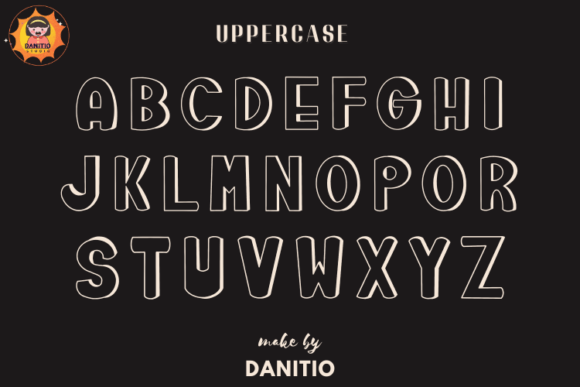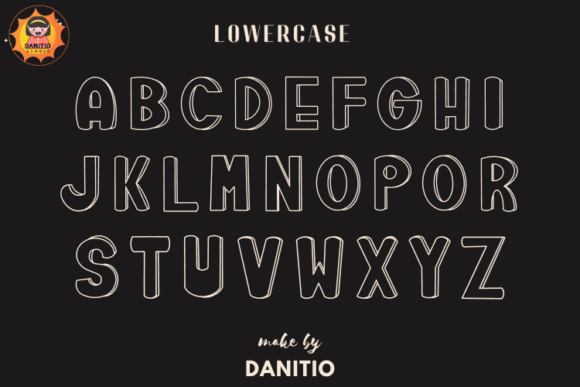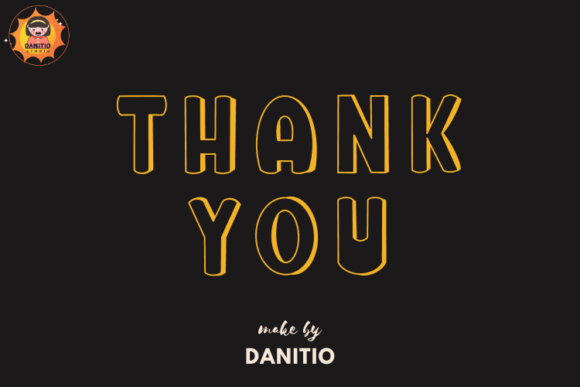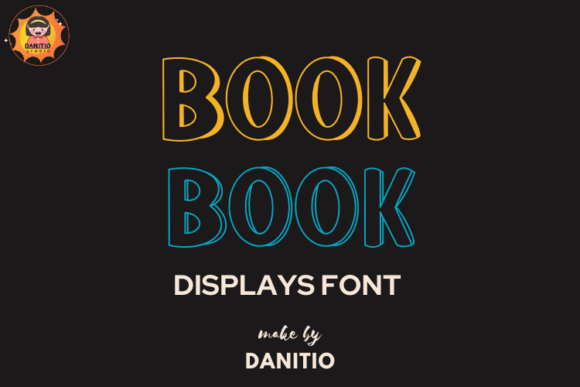
Introducing Book Book Font: The Ultimate Display Font for Cute and Creative Projects
Are you a designer, crafter, or DIY enthusiast looking for a font that can add a touch of cuteness and sweetness to your projects? Look no further than Book Book Font! This adorable display font is perfect for a wide range of applications, from kids’ worksheets and invitations to packaging and branding projects.
What Makes Book Book Font So Special?
Book Book Font is a unique and charming display font that is sure to capture the attention of your audience. Its cute and playful design makes it ideal for projects that require a touch of whimsy and fun. Whether you’re creating a worksheet for kids, an invitation for a party, or a packaging design for a product, Book Book Font is the perfect choice.
Key Features of Book Book Font
- Cute and Cool Design: Book Book Font features a unique and adorable design that is sure to make your projects stand out.
- Display Font: This font is specifically designed as a display font, making it perfect for headlines, titles, and other attention-grabbing elements.
- Great for Decorating: Book Book Font is ideal for decorating and combining pieces into your products, adding a touch of personality and style.
- Perfect for Kids: The font’s cute and playful design makes it perfect for kids’ worksheets, invitations, and other projects.
- Versatile: Book Book Font can be used for a wide range of applications, including worksheets, invitations, inserts, packaging, and branding projects.
Use Cases for Book Book Font
Book Book Font is a versatile font that can be used for a wide range of projects. Here are some use cases to get you started:
- Kids’ Worksheets: Add a touch of fun and personality to your kids’ worksheets with Book Book Font.
- Invitations: Create adorable invitations for parties, events, and other special occasions with Book Book Font.
- Inserts: Use Book Book Font to add a personal touch to your inserts, such as product labels, packaging, and more.
- Packaging: Add a touch of whimsy and fun to your packaging designs with Book Book Font.
- Branding Projects: Use Book Book Font to create a unique and memorable brand identity for your business.
Why Designers and Crafters Love Book Book Font
Designers and crafters love Book Book Font for its unique and adorable design. Here are some reasons why:
- Easy to Read: Book Book Font is easy to read, making it perfect for projects that require a clear and concise message.
- Highly Versatile: Book Book Font can be used for a wide range of applications, making it a great addition to any designer’s or crafter’s toolkit.
- Unique Design: Book Book Font features a unique and adorable design that sets it apart from other fonts.
Book Book Font is a cute and cool display font that is perfect for designers, crafters, and DIY enthusiasts. Its unique and adorable design makes it ideal for a wide range of applications, from kids’ worksheets and invitations to packaging and branding projects. With its ease of use, versatility, and unique design, Book Book Font is a great addition to any designer’s or crafter’s toolkit.